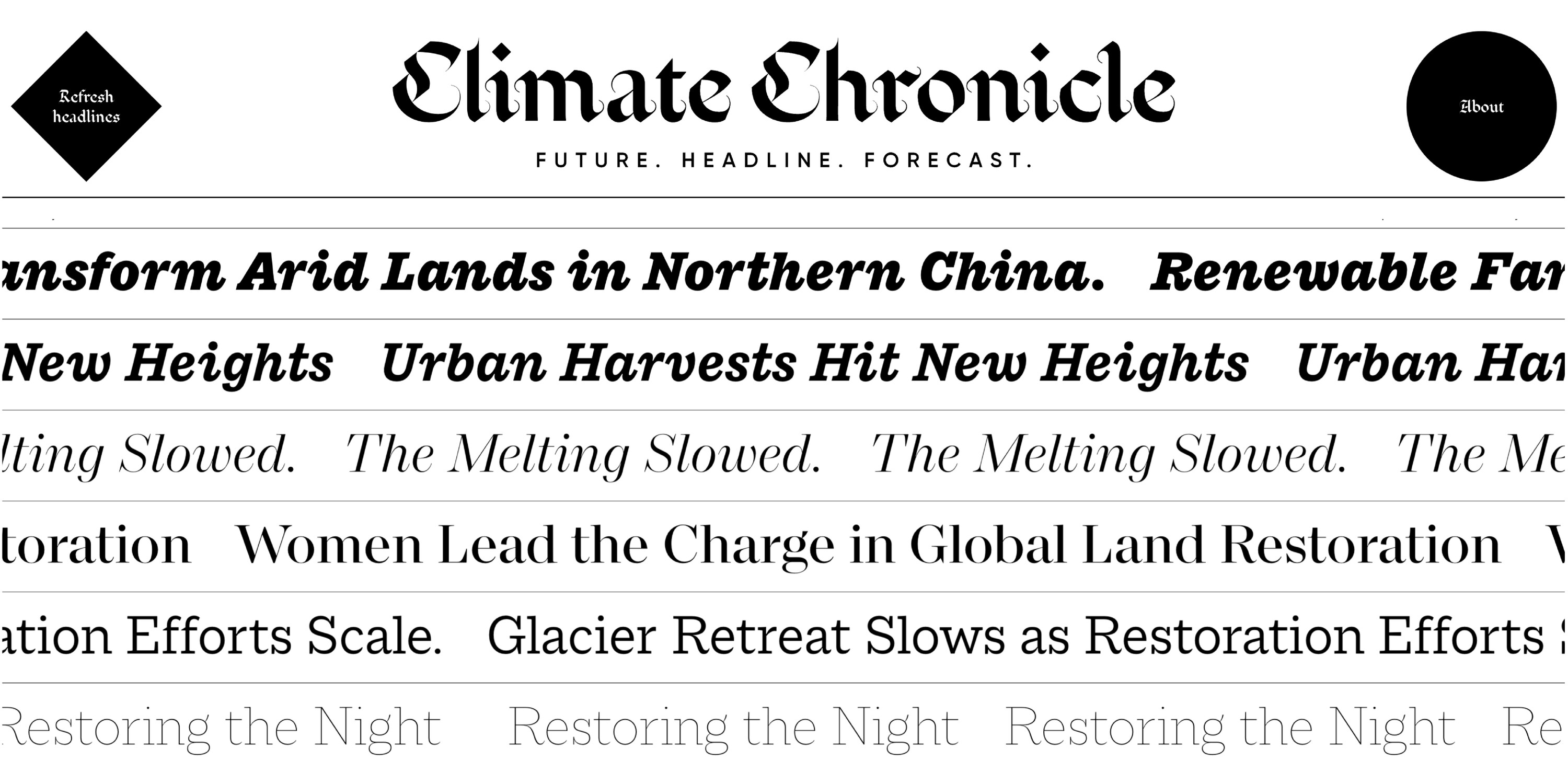
Monotype’s Creative Directors Collaborate with Bruce Mau Design to Reimagine Climate Future Through Design Thinking
Hot & Wet set in white in front of Re:Vision imagery.
Monotype’s Creative Directors Collaborate with Bruce Mau Design to Reimagine Climate Future Through Design Thinking
• Led by Monotype Executive Creative Director Phil Garnham in partnership with Bruce Mau Design, this project considers potential futures and how design can inspire climate optimism and action — giving shape to both problems and solutions.
• Part of Monotype’s Re:Vision campaign, delving into global themes impacting our world and their intersections with creativity.
• Using superfamily Macklin™ Variable, the project’s microsite hosts Climate Chronicle that illustrates how mindful design solutions can drive change.
WOBURN, Mass., December 11, 2025 — Monotype Imaging Inc., a global leader in type and technology, announces the launch of its Hot & Wet futures project as part of Monotype’s type trends Re:Vision 2025 campaign, which looks at the big, global themes impacting the world through a design lens.
Spearheaded by Phil Garnham, Executive Creative Director at Monotype, in partnership with Bruce Mau Design, a multidisciplinary brand and design studio, this project is an exploration of how visual communication can shift climate conversations to inspire imagination, optimism, and action.
At the center of the project is Climate Chronicle, a microsite with a rotating collection of tomorrow’s “future headlines,” written as if environmental progress has already been achieved. Combining collaborative creative leadership with practical design tips, the project demonstrates how small, intentional design choices can contribute to a more sustainable future.
Climate Chronicle image with optimistic future headlines for a better climate.
Climate Chronicle: Project Highlights
• A series of optimistic “future headlines,” imagining a more positive climate future.
• Sustainable design tips paired with each headline, making technical choices visible and actionable.
• A focus on how design choices can ripple outward to influence perception and action.
• Headlines set in Macklin™ Variable, a variable font superfamily chosen for its bold, expressive style and ability to deliver typographic variety with fewer files and lower digital impact.
Driving Climate-Positive Action Through Design
While discussions around the environment can feel overwhelming, this project demonstrates how design can act as a catalyst for sustainability, showing how the creative decisions we make (such as typography) can influence environmental outcomes. Small technical decisions multiplied at scale have a large impact.
“Future Headlines is an exercise we use in our brand workshops — it felt like a natural framework to use in our collaboration with Monotype,” said Kar Yan Cheung, Director of Design Strategy at Bruce Mau Design.
Envisioning a More Sustainable Future
To bring the future headlines in Climate Chronicles to life, Monotype Executive Creative Directors selected Macklin™ Variable, a variable font superfamily of 54 styles that evokes newspaper headlines with attention-grabbing styles. This selection shows that environmentally conscious choices can act as a compelling storytelling component. It also illustrates the power of variable fonts in building harmonious, yet stylistic variety across the design canvas.
A creative decision to use fewer styles, smaller files, or variable fonts in general can add up to meaningful impact when evaluating energy use. Smarter font delivery and broader script support make typography more sustainable for everyone.
Typography may seem like a small piece of the puzzle, but its sustainability potential is significant and increasingly essential as digital ecosystems continue to expand. Perhaps the strongest impact a typeface can have on the environment is on the emotional appeal of the storytelling itself.
“Inquisitive designers are always trying to push boundaries; it’s in our nature. Environmental design offers another touchpoint for that creative spirit. A typeface is kilobytes of encoded culture in a world of gigabyte media — by choosing and using typefaces with intention, typography becomes a subtle but serious climate tool,” said Phil Garnham, Executive Creative Director at Monotype. “Timeless type design is, in many ways, ecological design.”
“News-wise, we are overwhelmed by dystopian narratives about the climate crisis. Without hopeful, creative visions of what’s possible, we risk collective paralysis. We wanted to explore what it might feel like to encounter positive news about what our lives could be like if we addressed climate change. If we can’t imagine the future we want, we can’t possibly get there,” said Laura Stein, Chief Creative Officer at Bruce Mau Design.